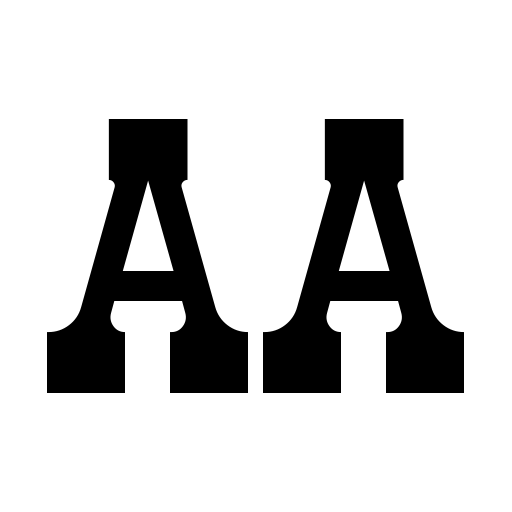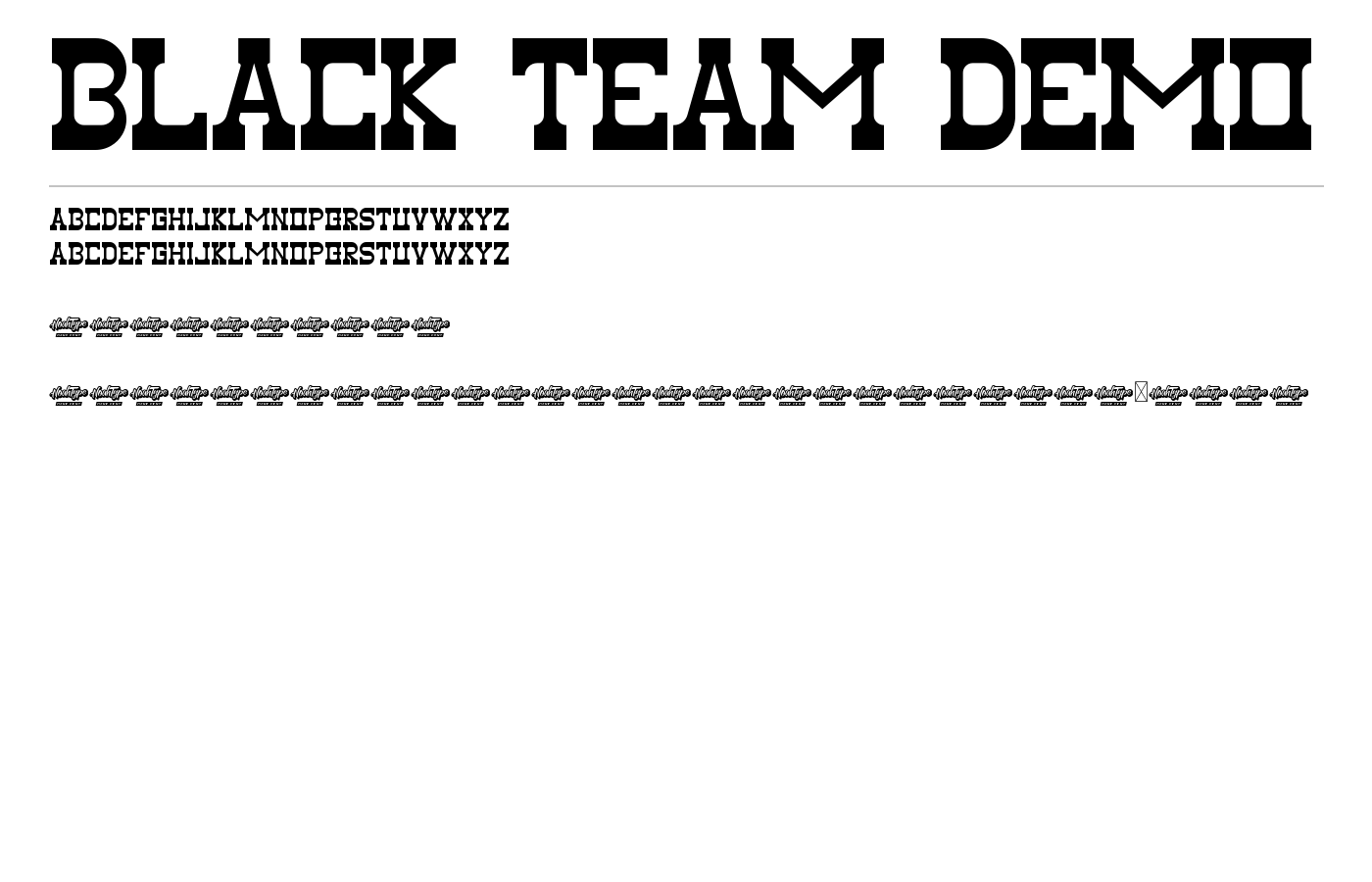
Black Team Demo is a bold, slab serif typeface with a strong, blocky structure and a vintage western feel. Its high contrast between thick and thin strokes, sharp unbracketed serifs, and compact letterforms make it ideal for eye-catching headlines, posters, and branding that needs a rugged yet refined character. This font works well for designs aiming to convey strength, tradition, and a touch of historic charm.
Black Team Demo Font
About Black Team Demo Font
| Font family | Black Team Demo Font |
| Designer | Shalsha & Sarah SP |